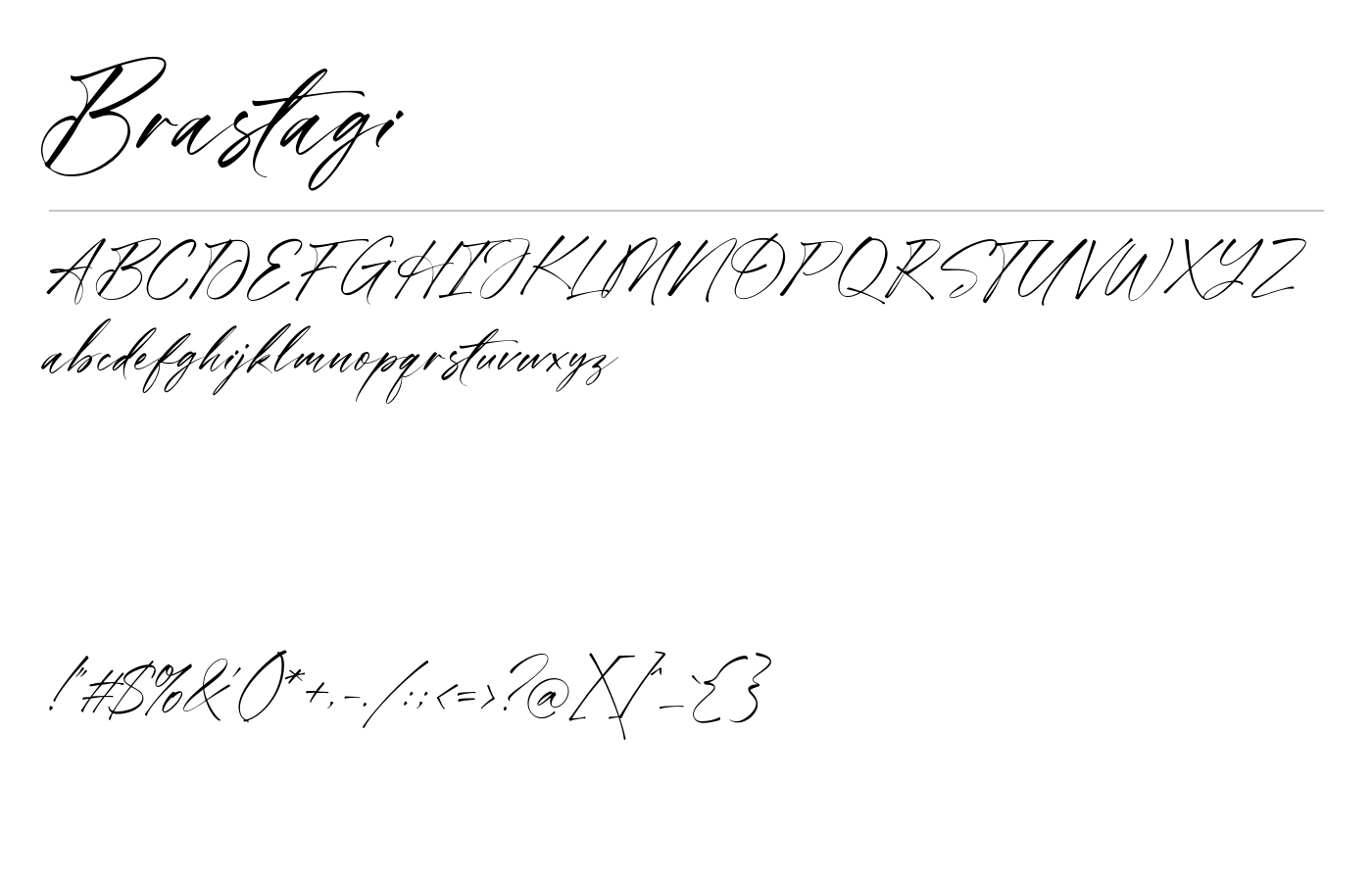
Brastagi is an elegant, flowing script font with a light and airy feel, characterized by its fine, calligraphic strokes and natural, handwritten style. Its slender letterforms and smooth curves make it perfect for use in invitations, branding, and any design seeking a sophisticated yet personal touch. This font shines best in large sizes for logos, headlines, and decorative text where its graceful, artistic flair can truly stand out.
Brastagi Font
About Brastagi Font